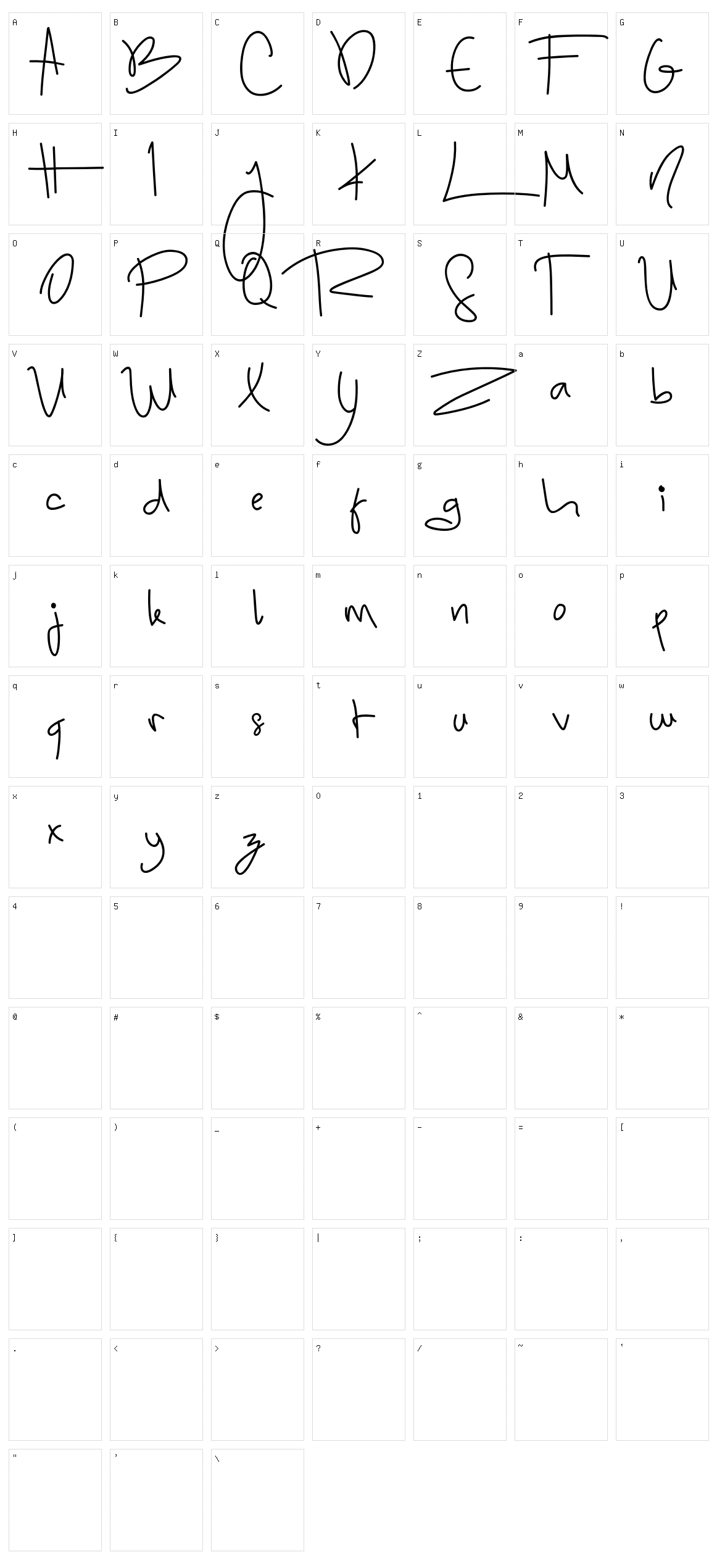
Sugar Candy
is a Signature typeface font inspired from classic handwriting style.
Suitable to create any branding, product packaging, invitation, quotes,
t-shirt, label poster etc.
Feature
UPPERCASE
lowercase
Number & Symbol
Alternative UPPERCASE
Alternative lowercase